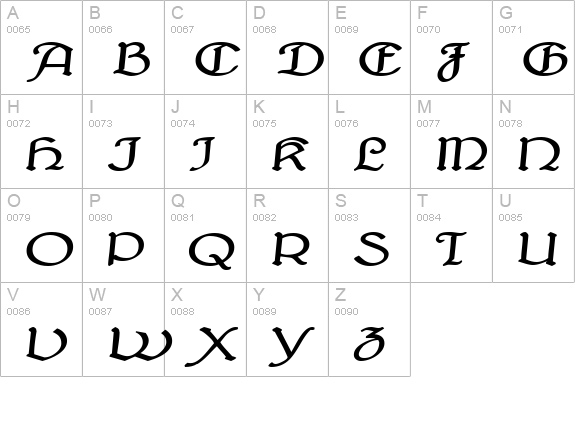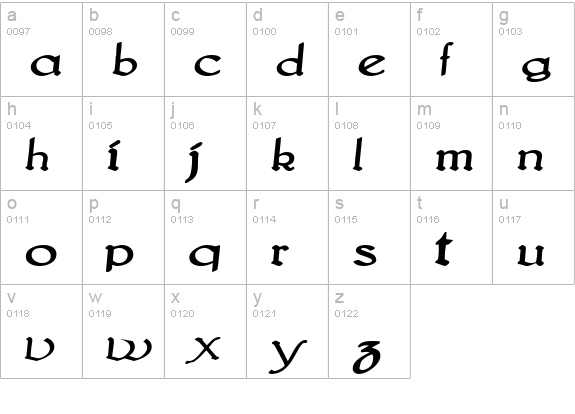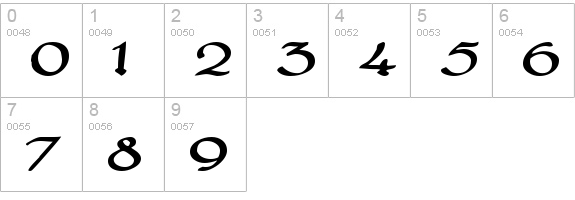
BreakersSSK Bold is a strong, high-contrast variant in the BreakersSSK typeface family \xE2\x80\x94 well suited to headlines, attention-grabbing titles, and strong calls-to-action.
BreakersSSK Bold font is a striking and eye-catching typeface that exudes confidence and modernity. Its bold and dynamic design makes it perfect for headlines, titles, and other attention-grabbing text. This font is ideal for projects that require a strong visual impact and a touch of boldness. The best part is that BreakersSSK Bold font is available for free download at FontsMarket.com. Whether you're working on a poster, logo, website, or any other creative project, this font will surely make a bold statement. Don't miss out on the opportunity to enhance your designs with this impressive and versatile typeface. Download BreakersSSK Bold font for free today and take your designs to the next level with its bold and impactful style.